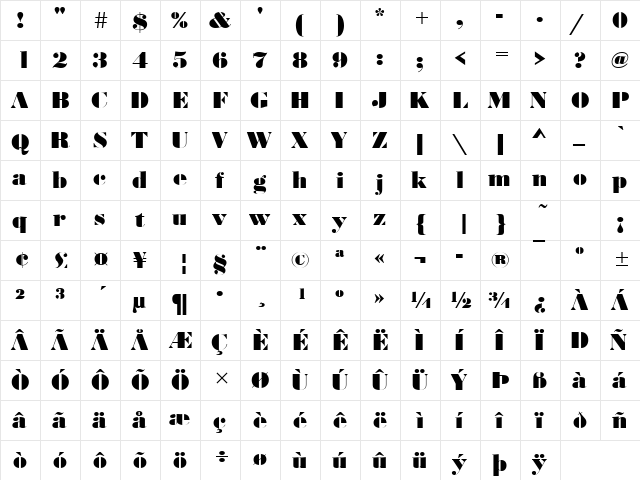
BodoniNo2DUlt Regular Font Preview
BodoniNo2DUlt Regular
Design Context for BodoniNo2DUlt Typeface
BodoniNo2DUlt offers clean, dependable letterforms without strong stylistic allegiance, making it a practical choice for designers who need flexibility.